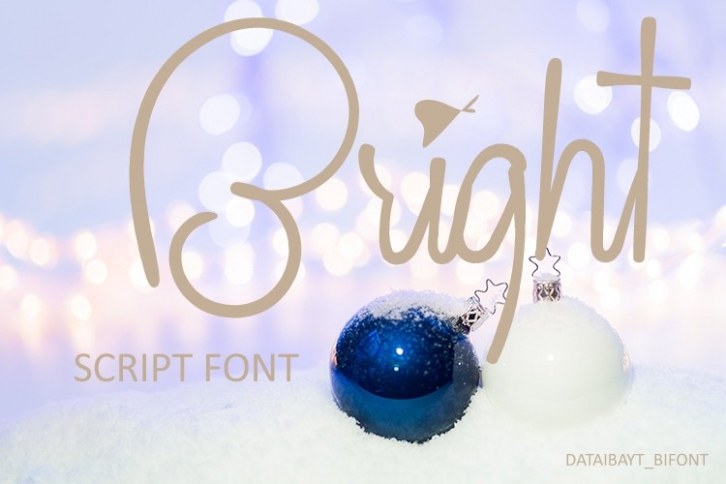
Bright is a trendy and unique font with an authentic style. It was designed by nagoisme and it's a great choice for creative people who need such a font. It was released on December 17, 2019 and the file size is 6.26 MB. Bright will add an organic vibe to any design idea!